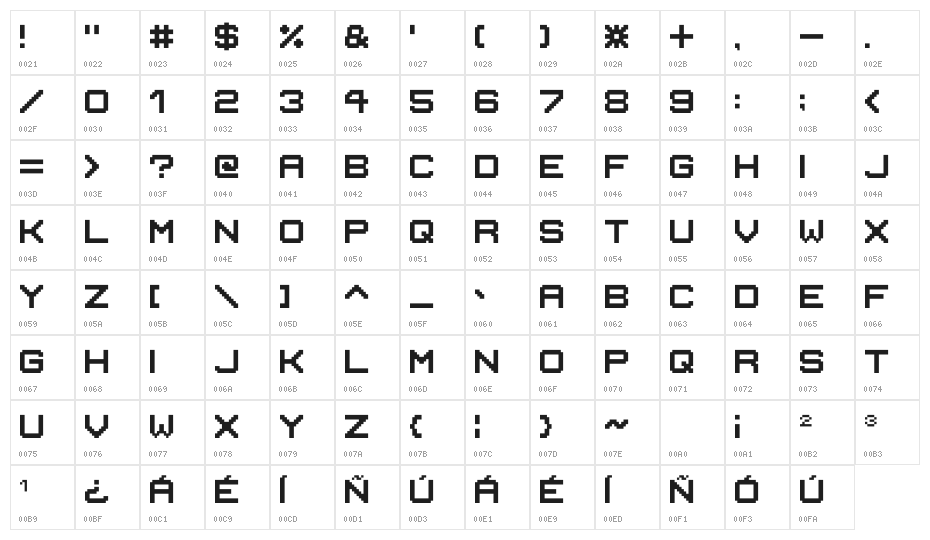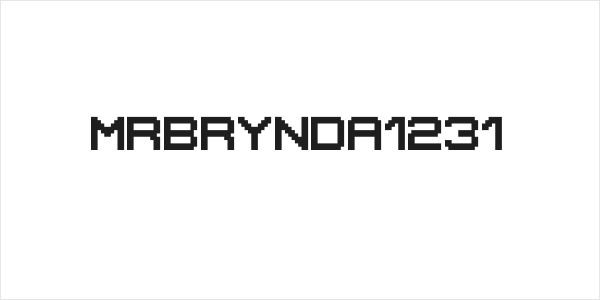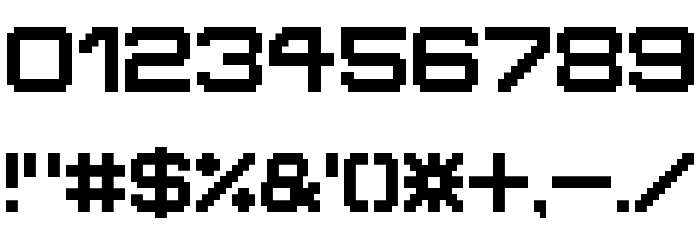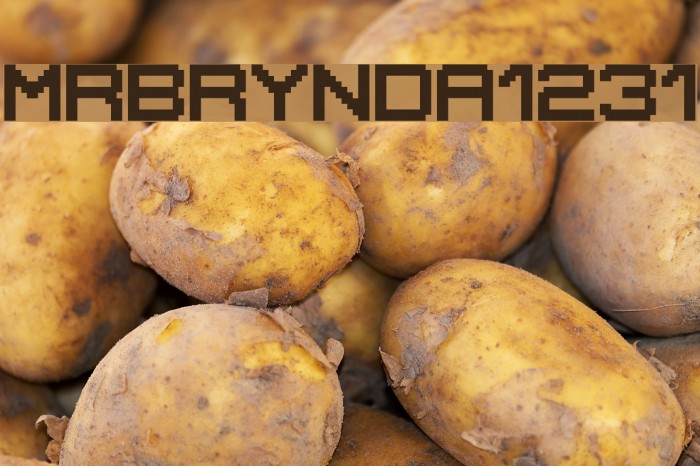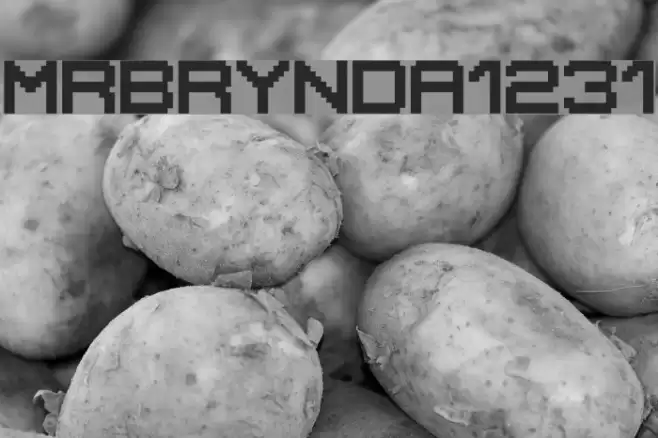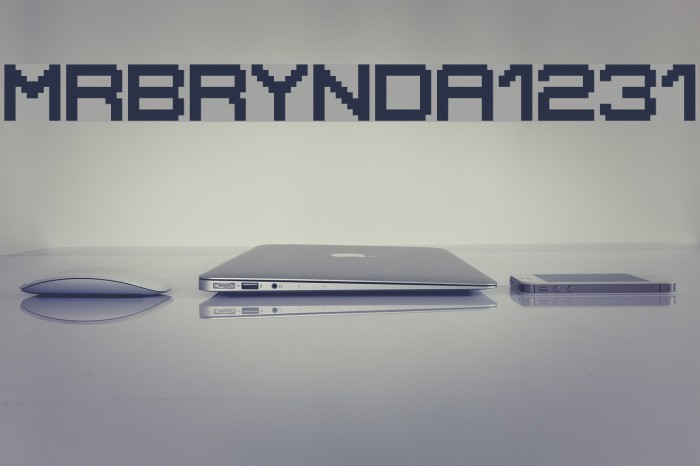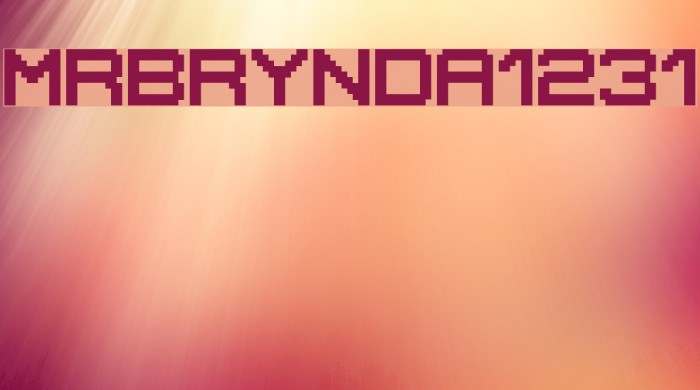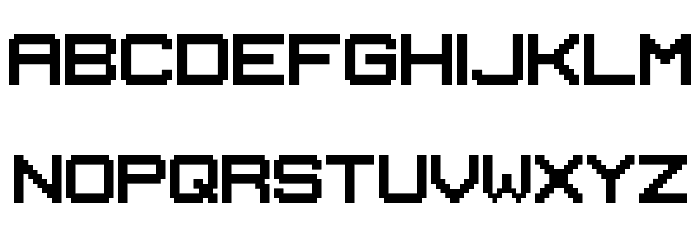
MrBrynda1231 Font
MrBrynda1231 Description
This font features a pixelated, blocky design reminiscent of early digital displays and retro video games. Each character is composed of uniform square blocks, giving it a distinctly digital and geometric appearance. The uppercase and lowercase letters maintain a consistent height, contributing to a monospaced feel, although the font itself is not strictly monospaced. The numerals and special characters follow the same pixelated style, ensuring uniformity across all glyphs. This design is highly legible at larger sizes, making it ideal for display purposes where a retro or tech-inspired aesthetic is desired.
| Overall Style | Retro, Digital |
| Proposed Projects | Ideal for retro video game designs, tech-themed posters, digital art projects, and any creative work that requires a nostalgic digital look. |